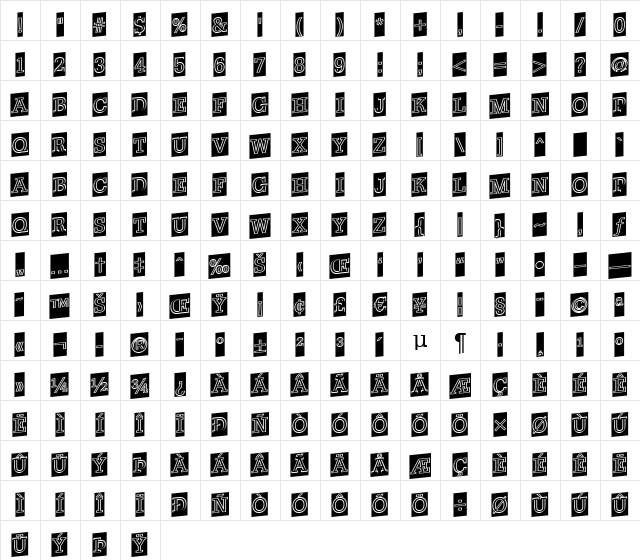
a_NoterCmGrUp Regular Font Preview
a_NoterCmGrUp Regular
| Designer | W.Chufarofsky & M.Slutsker |
Design Context for a_NoterCmGrUp Typeface
a_NoterCmGrUp takes a measured approach to typography — its balanced proportions and neutral character make it a reliable workhorse for both digital and print work.